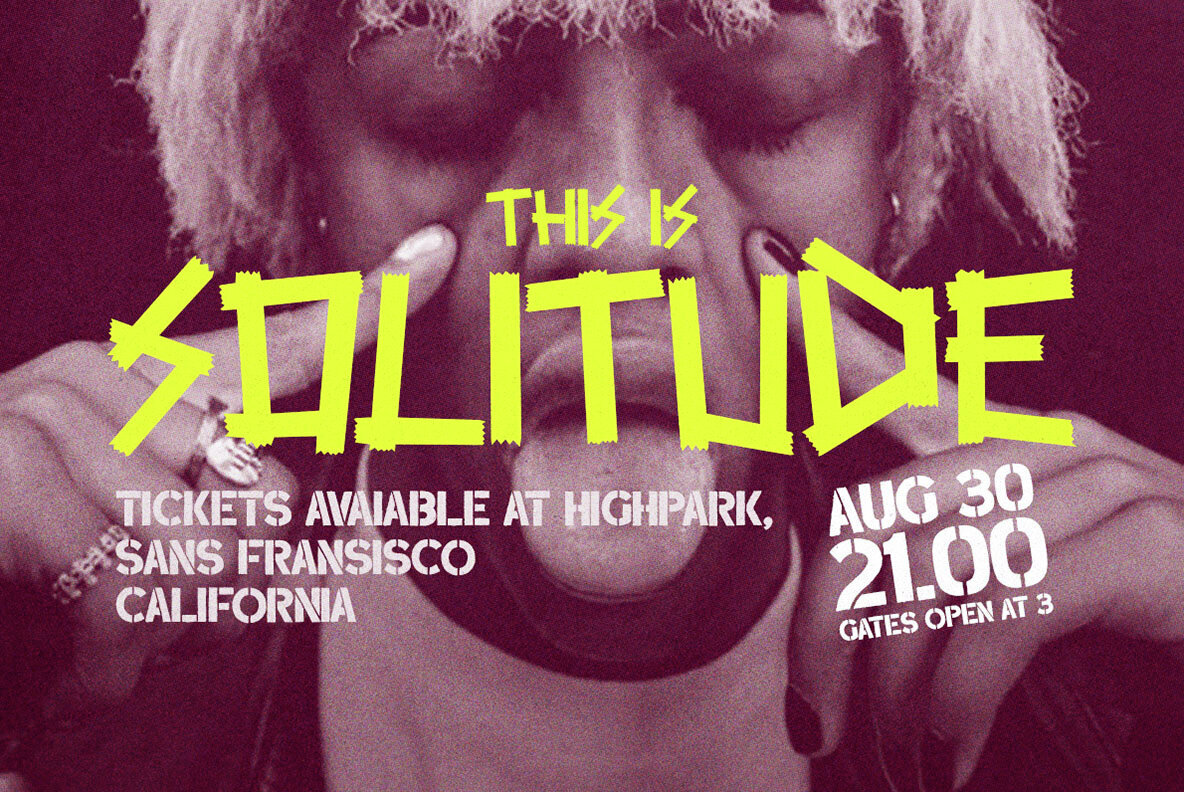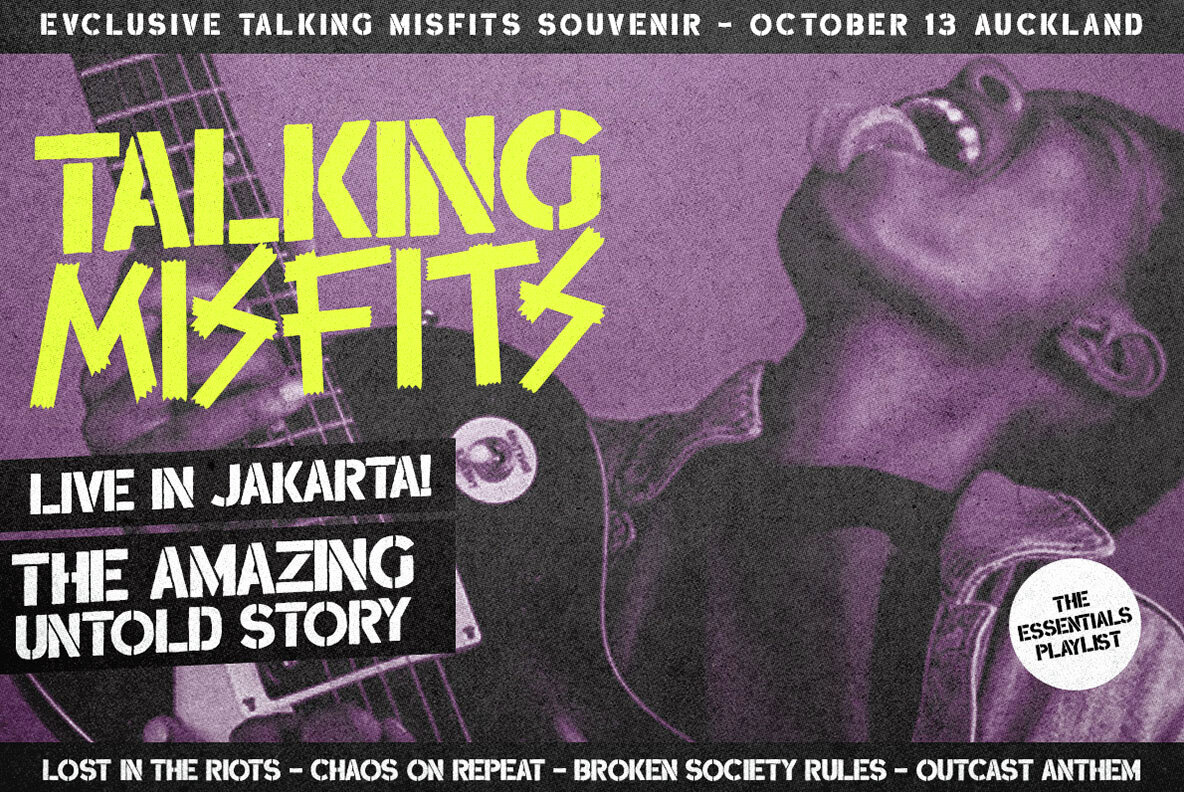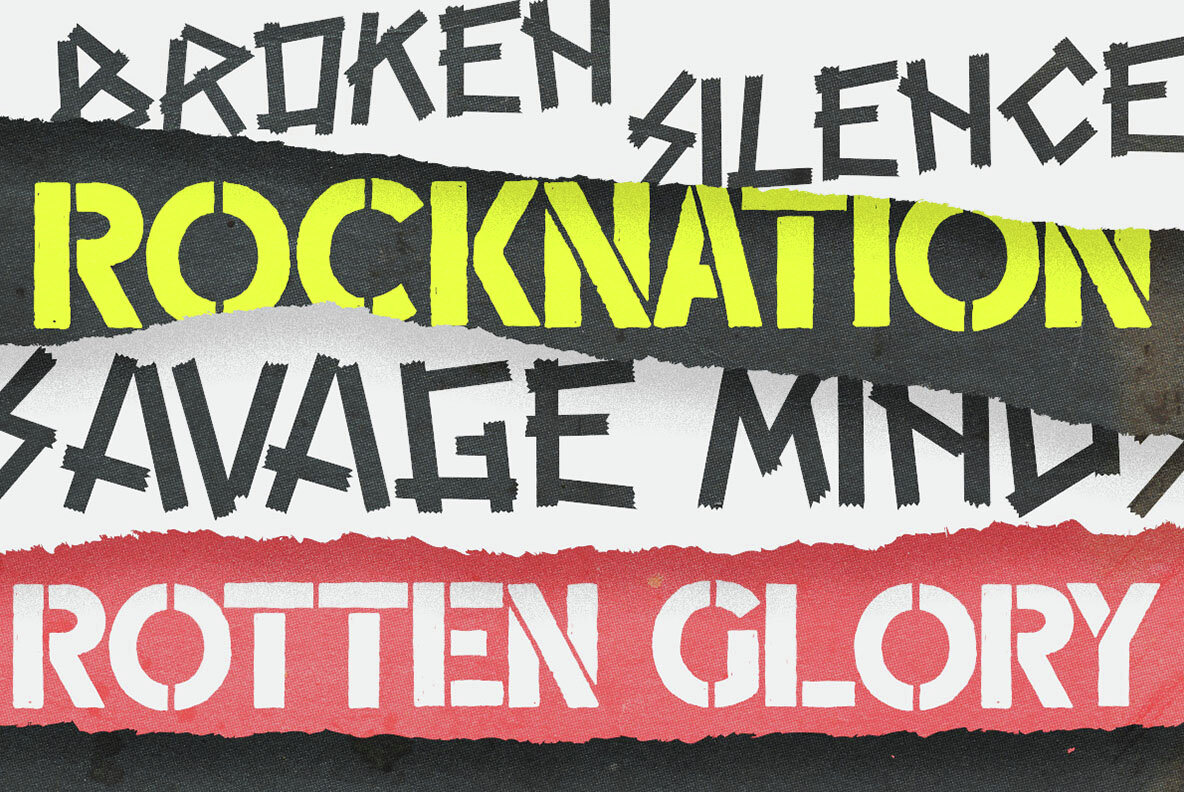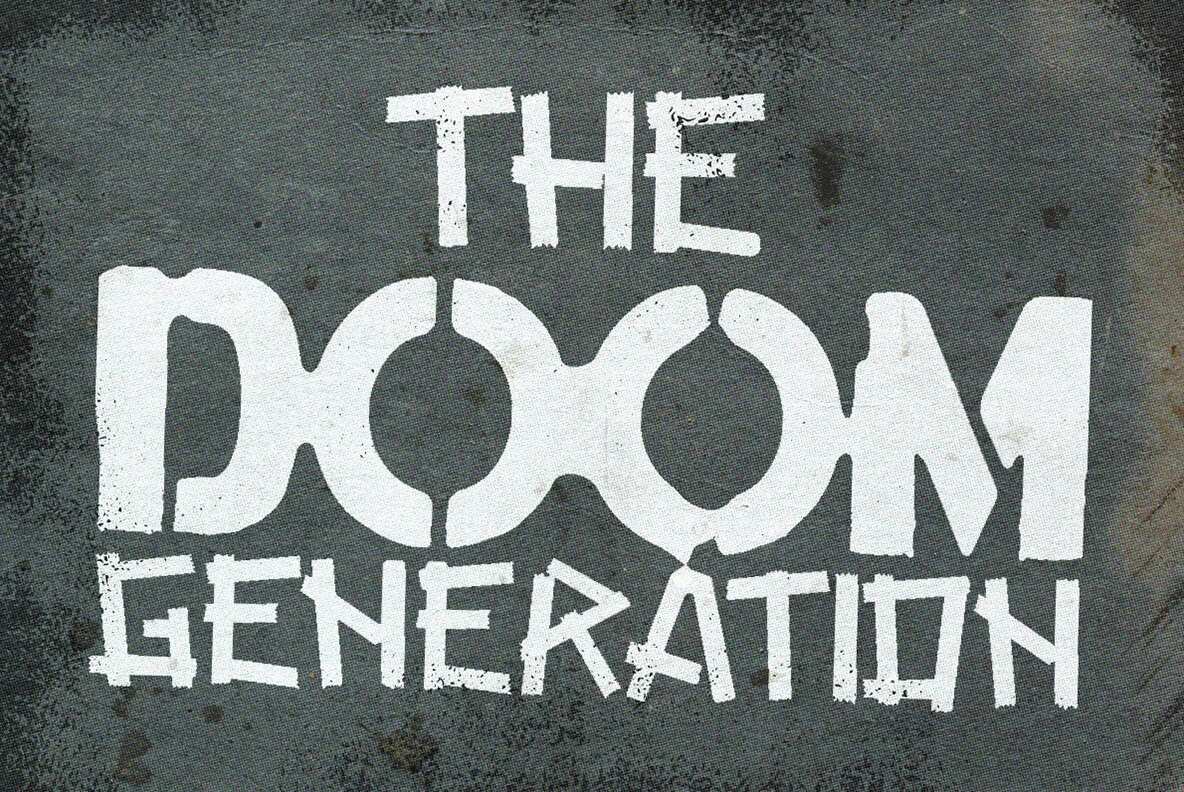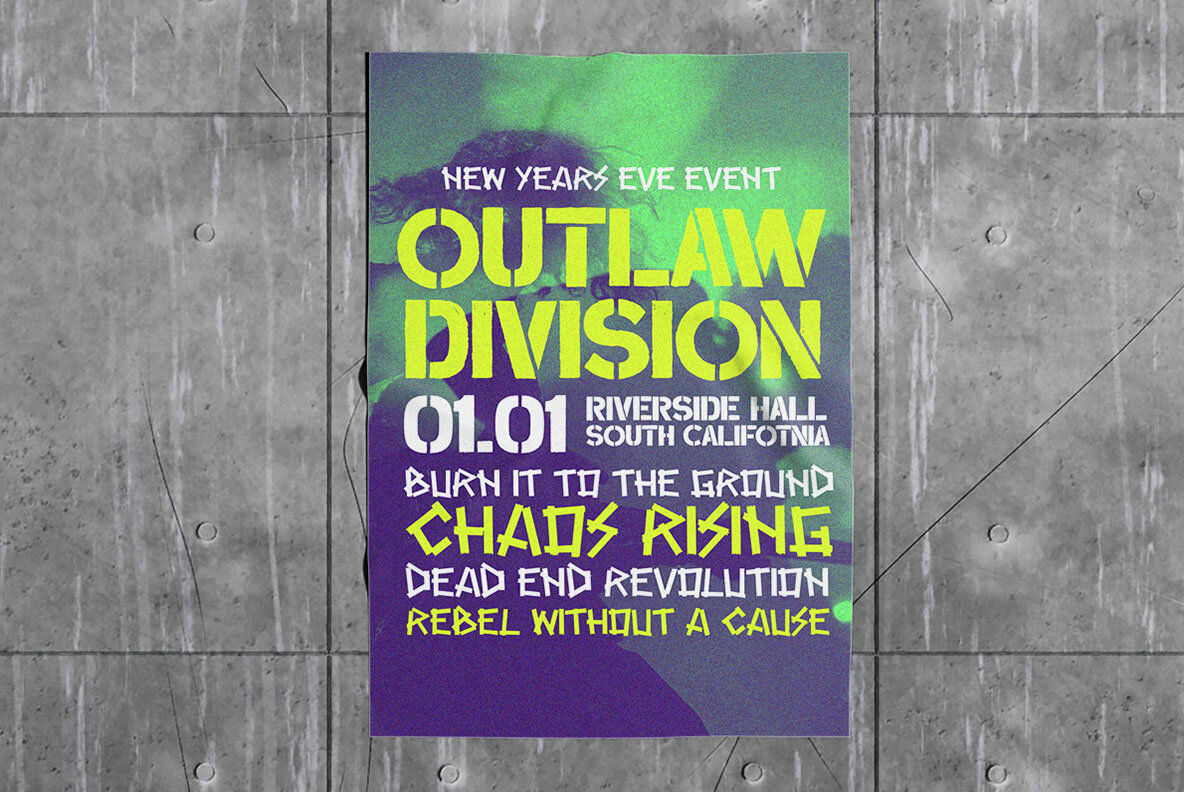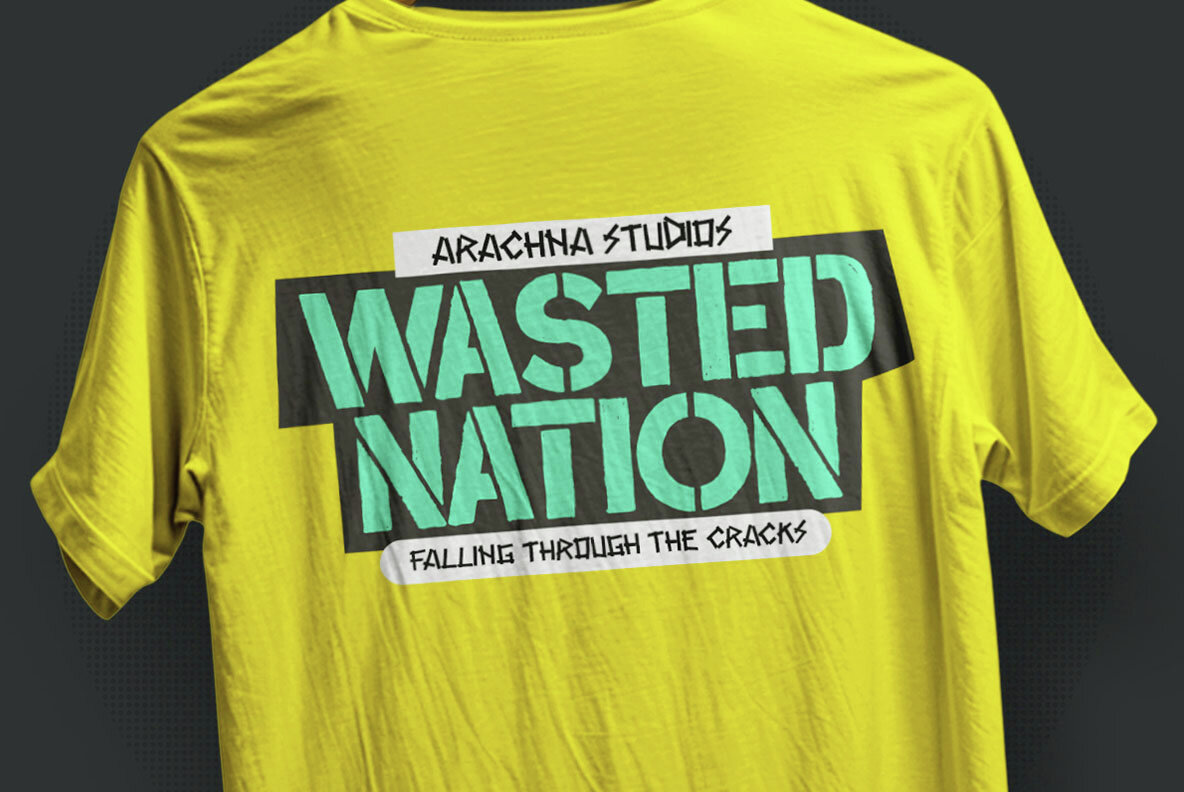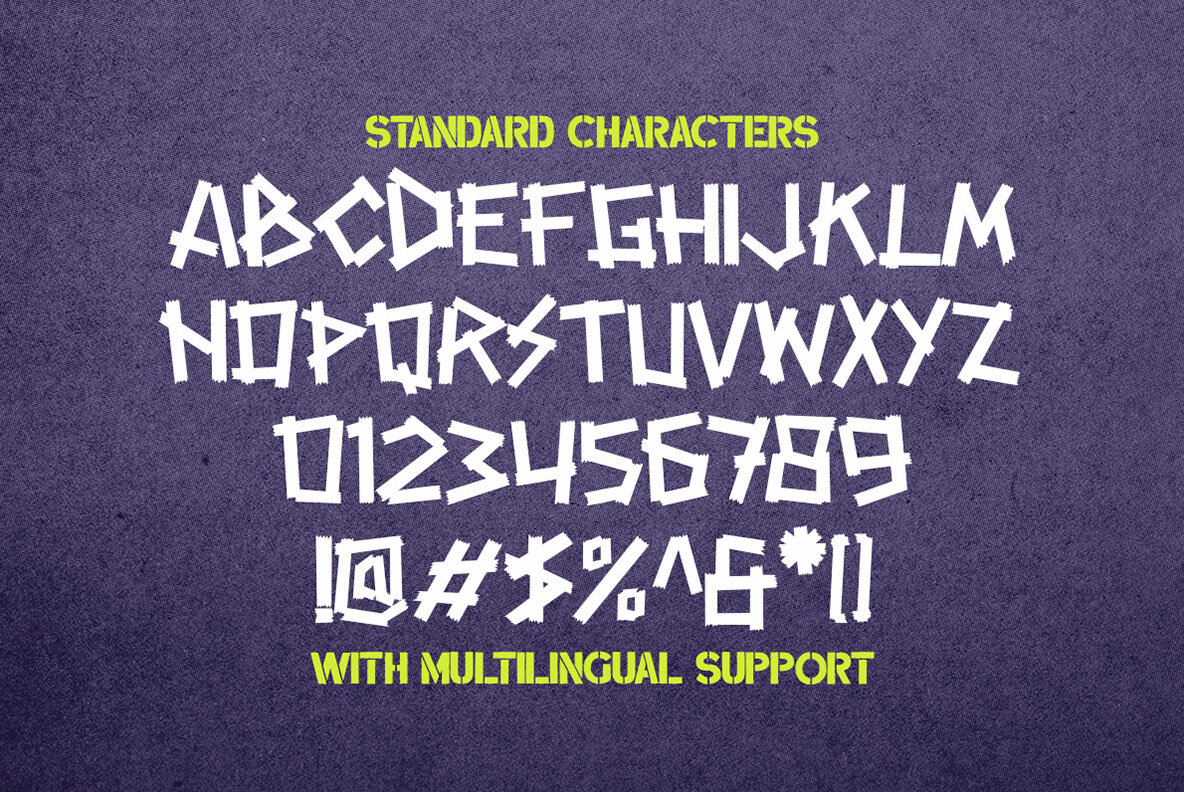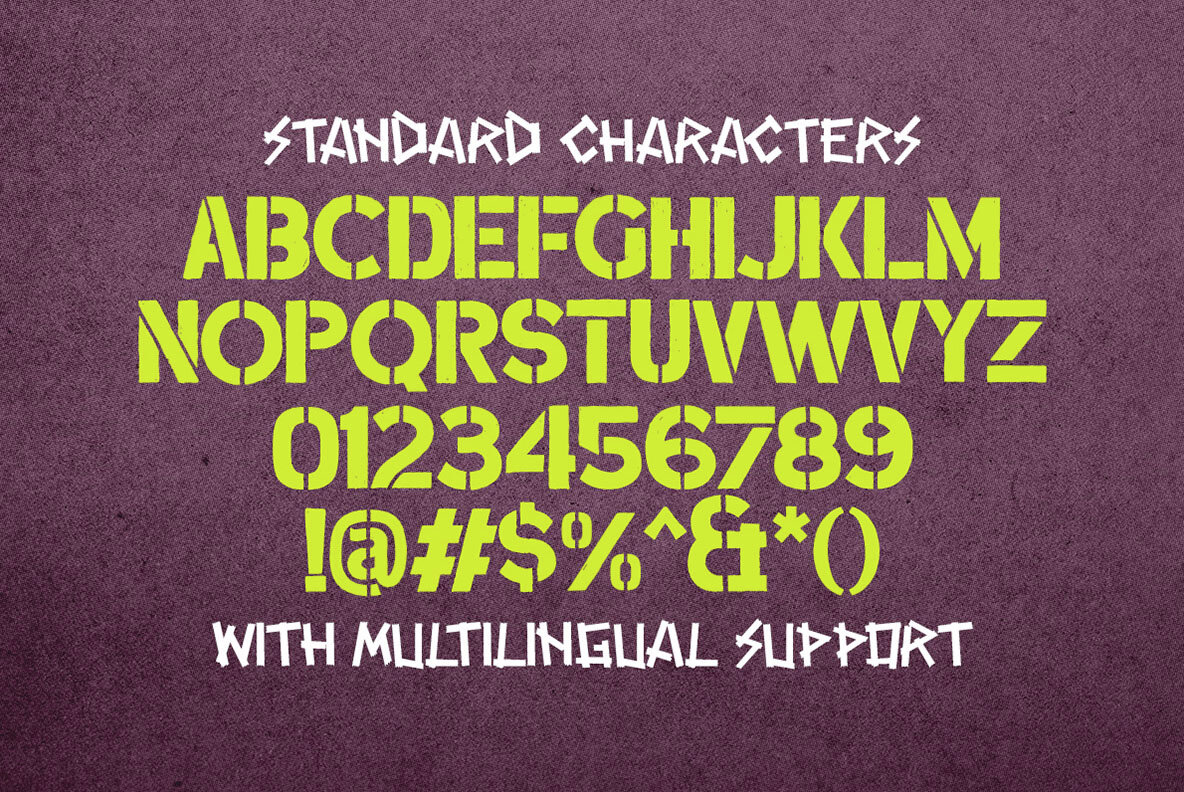
Broken Silence Font
Meet Broken Silence—a bold, street-style display font that mixes raw stencil cuts with freestyle urban vibes. This font duo is perfect for street-themed designs, street wear branding, or even the title of a game tittle. It’s made to stand out on logos, headlines, signage, and more, while also looking sharp on apparel, book covers, labels, packaging, and all kinds of advertising. Features : We highly recommend using a program that supports OpenType features and Glyphs panels like many of Adobe apps and Corel Draw, so you can see and access all Glyph variations.